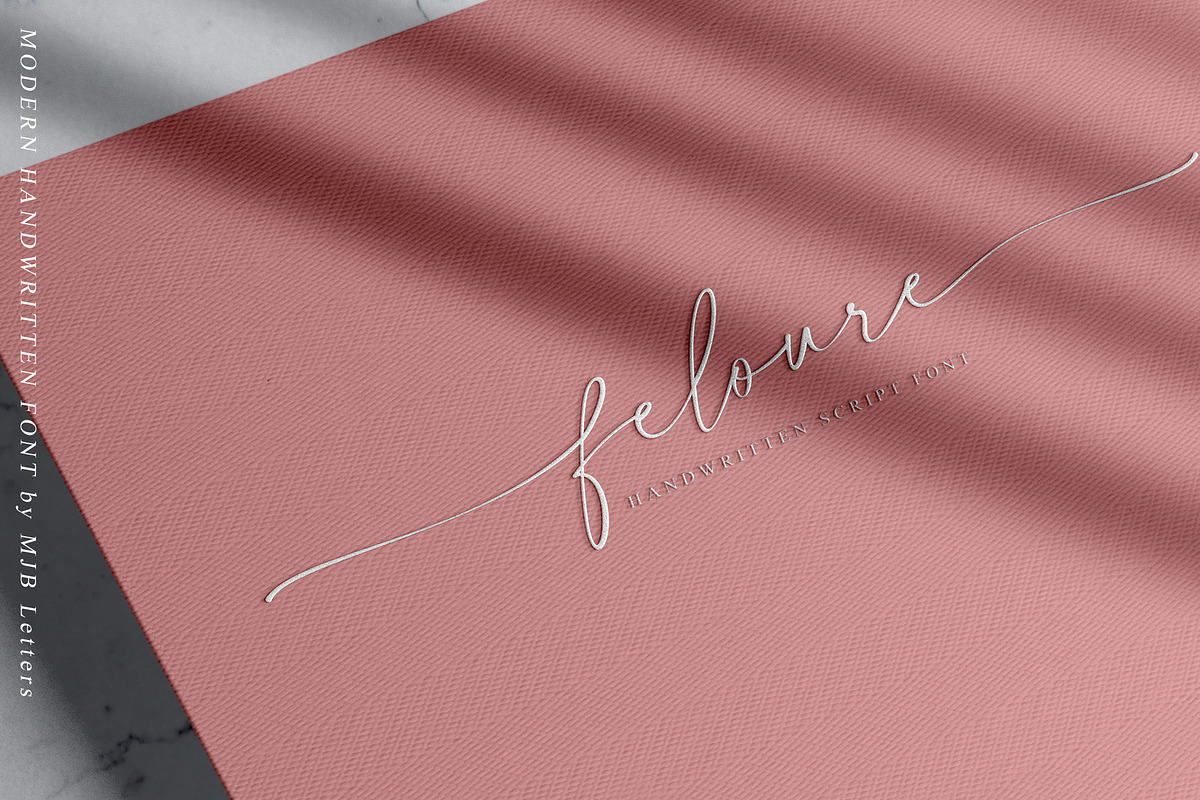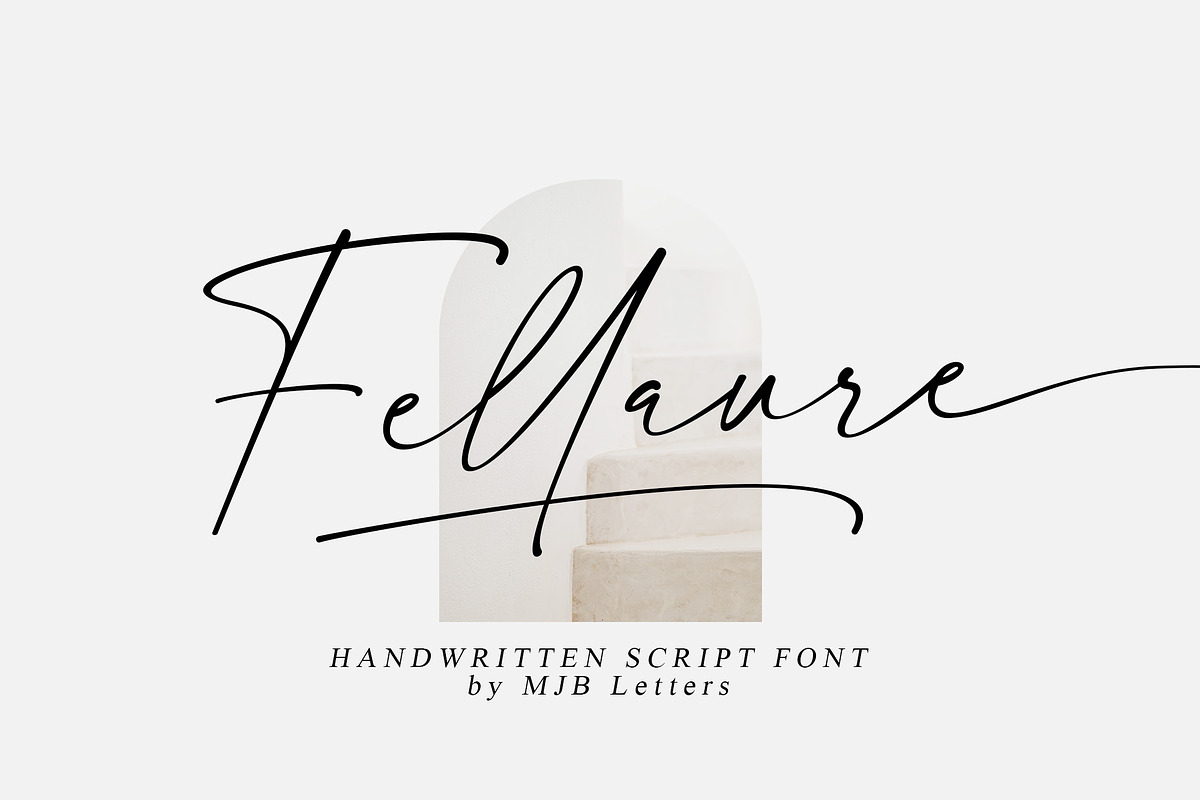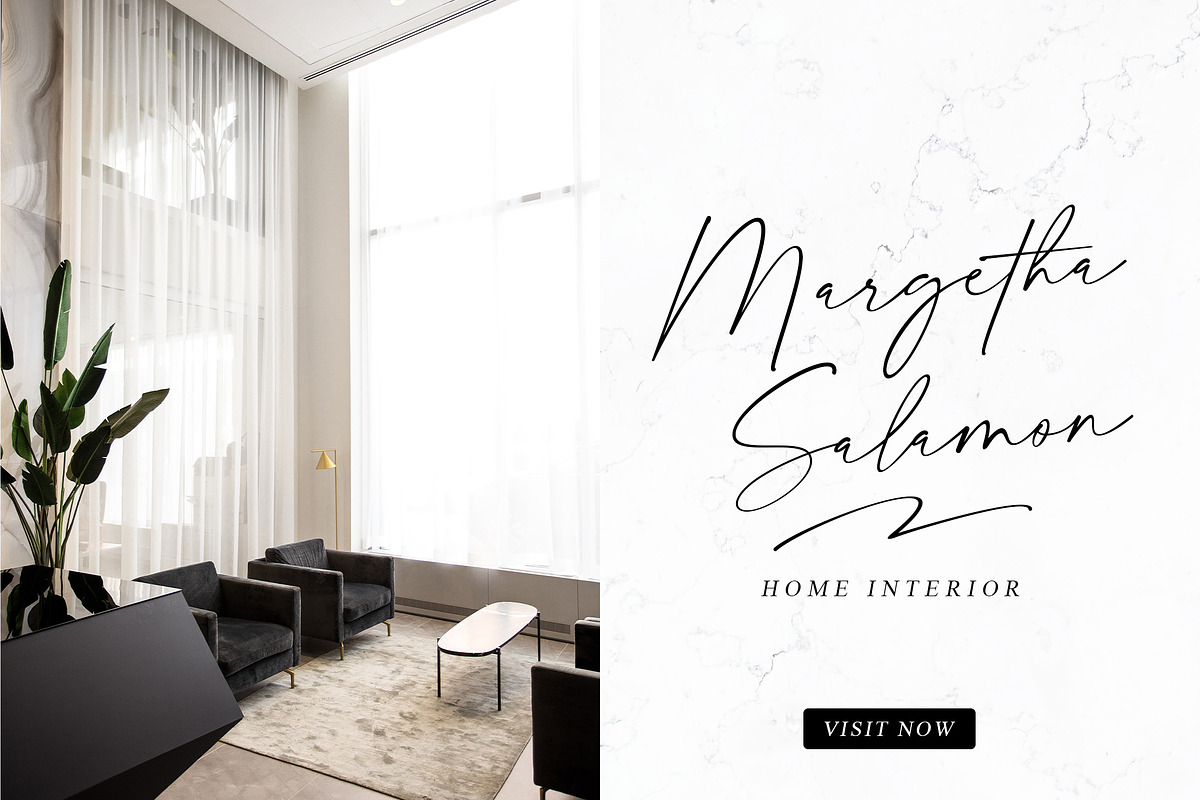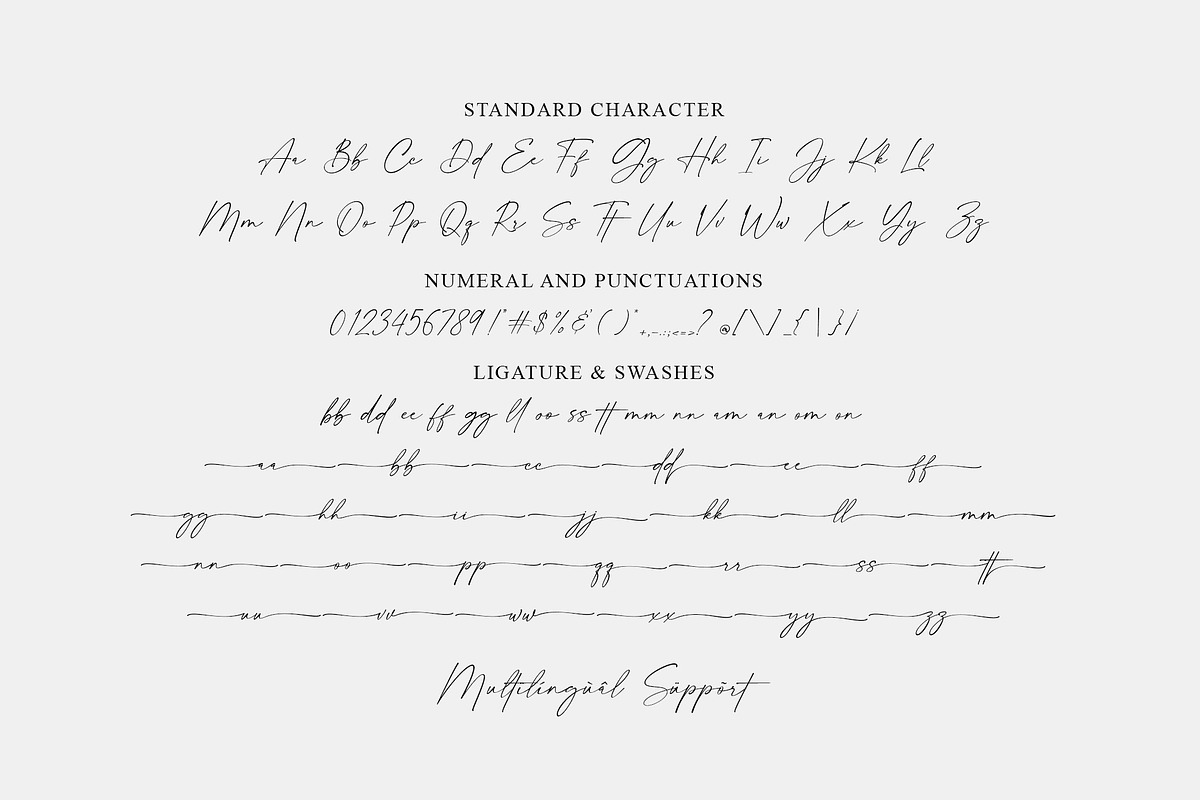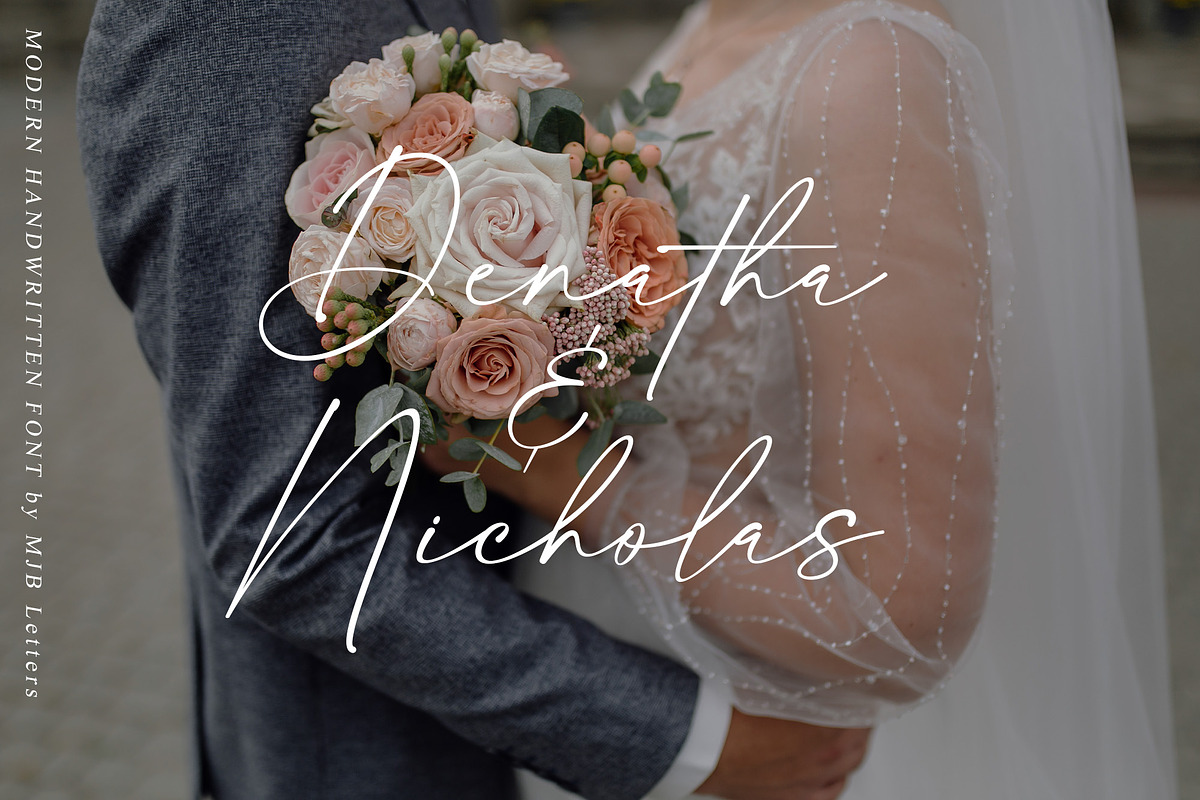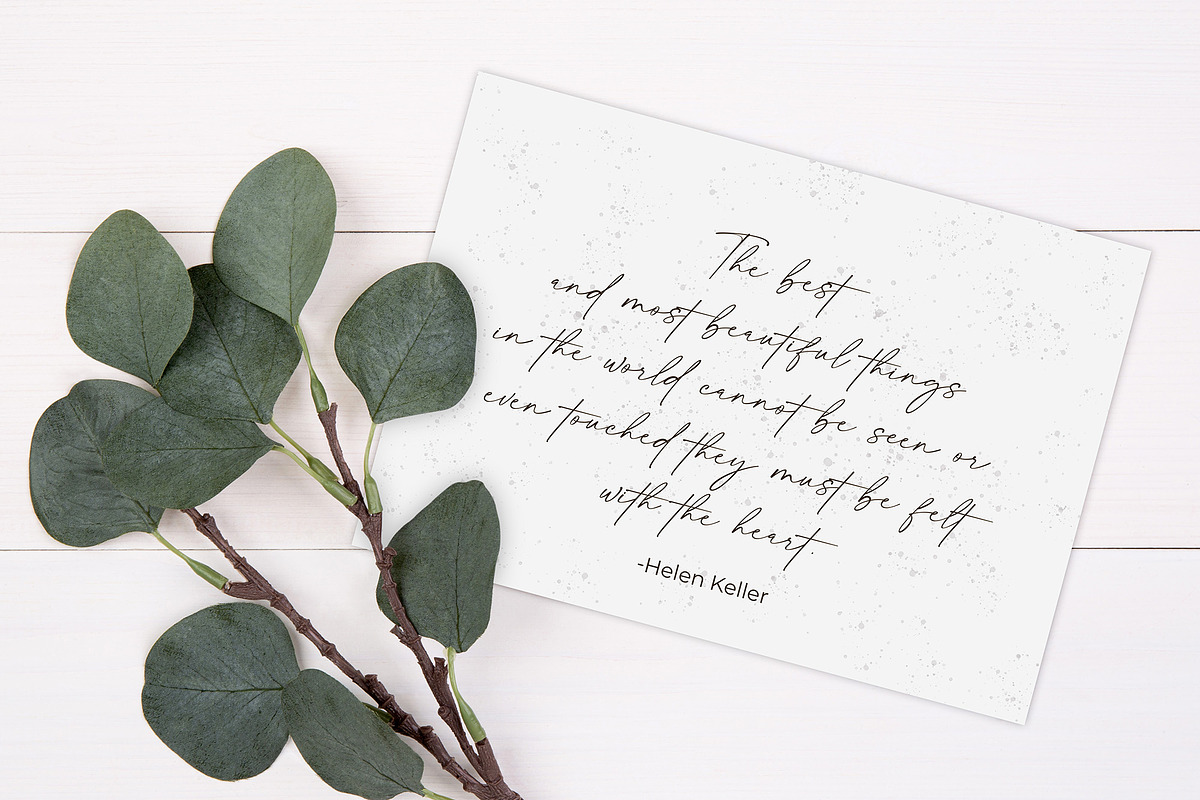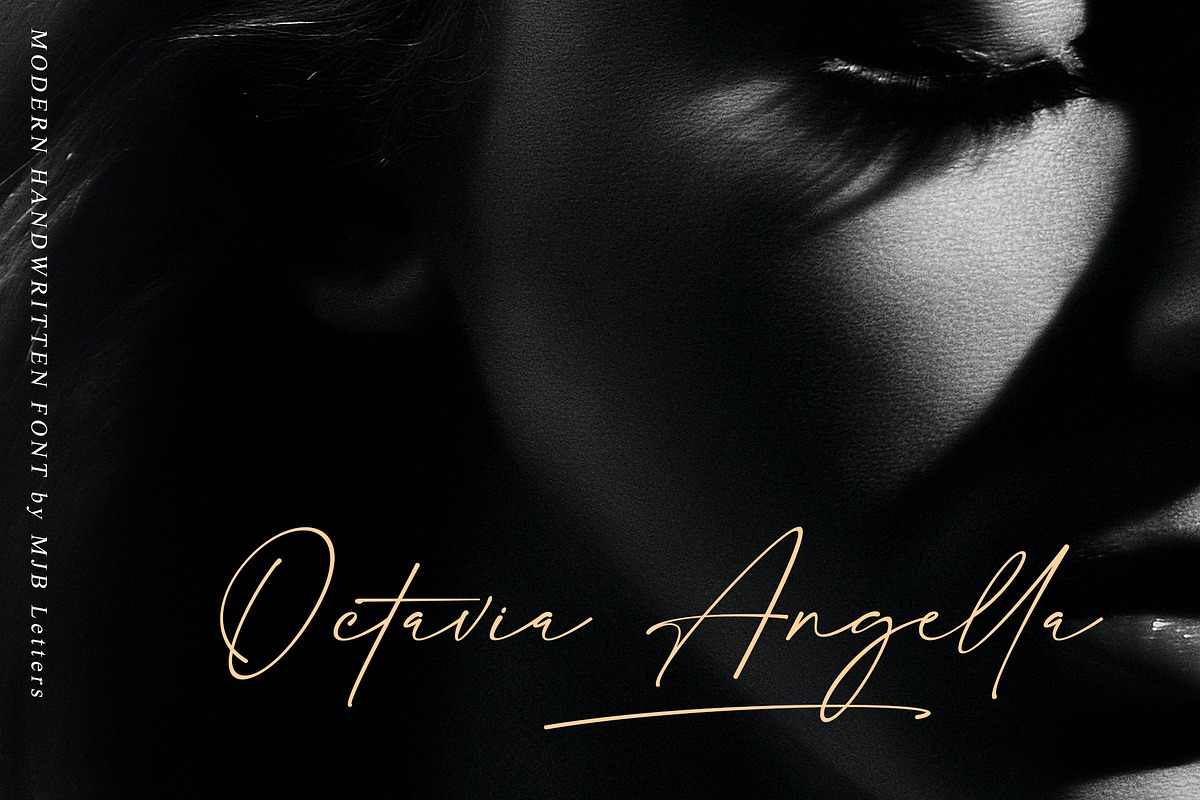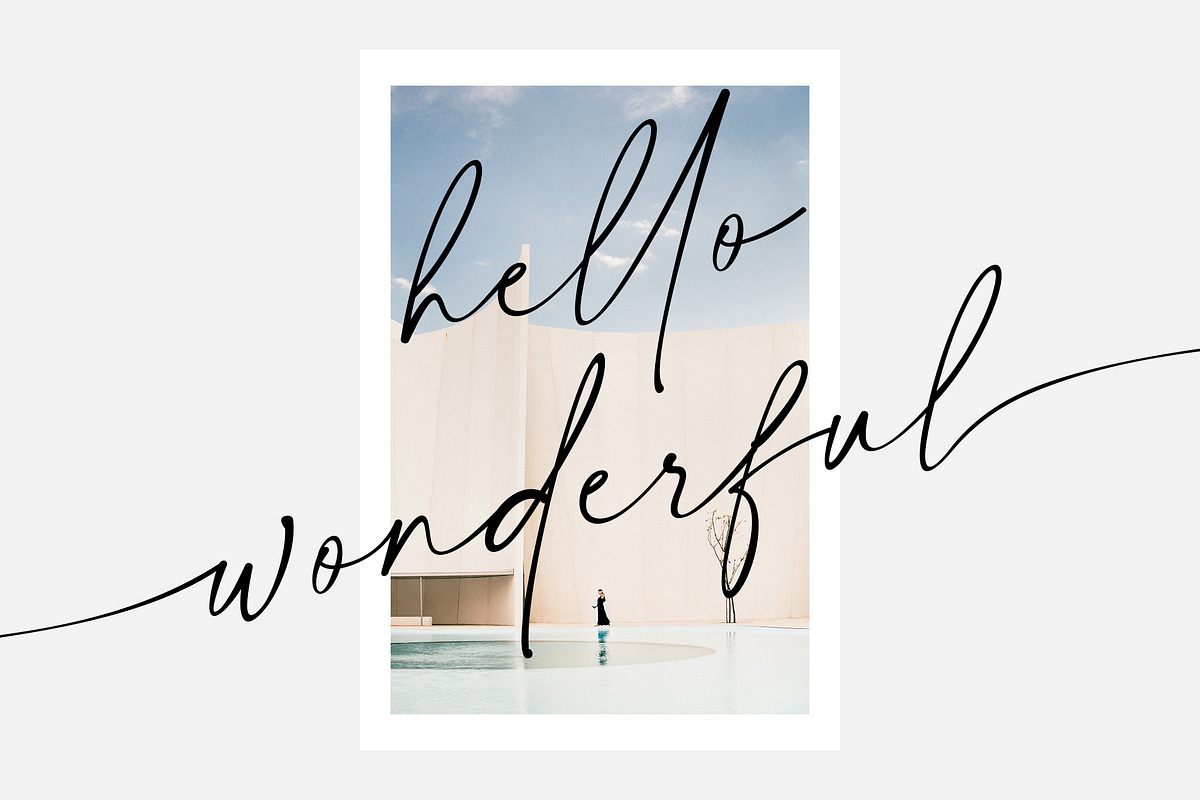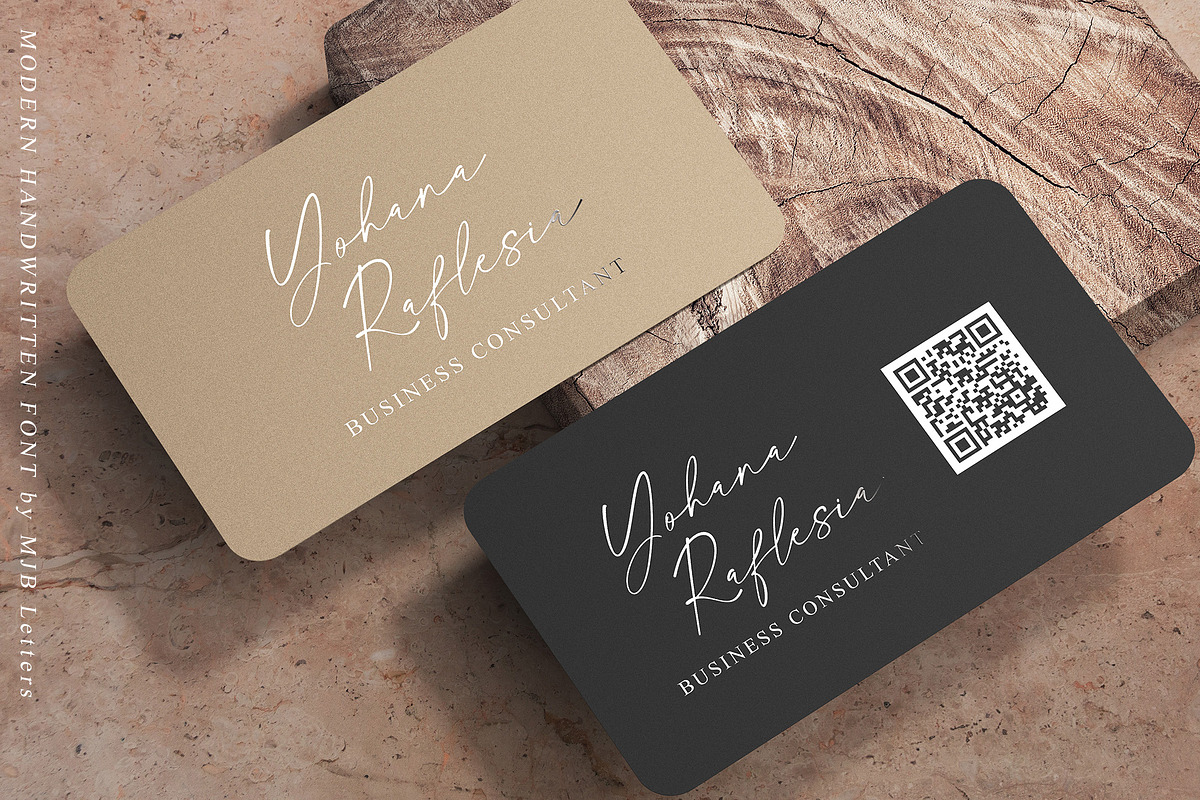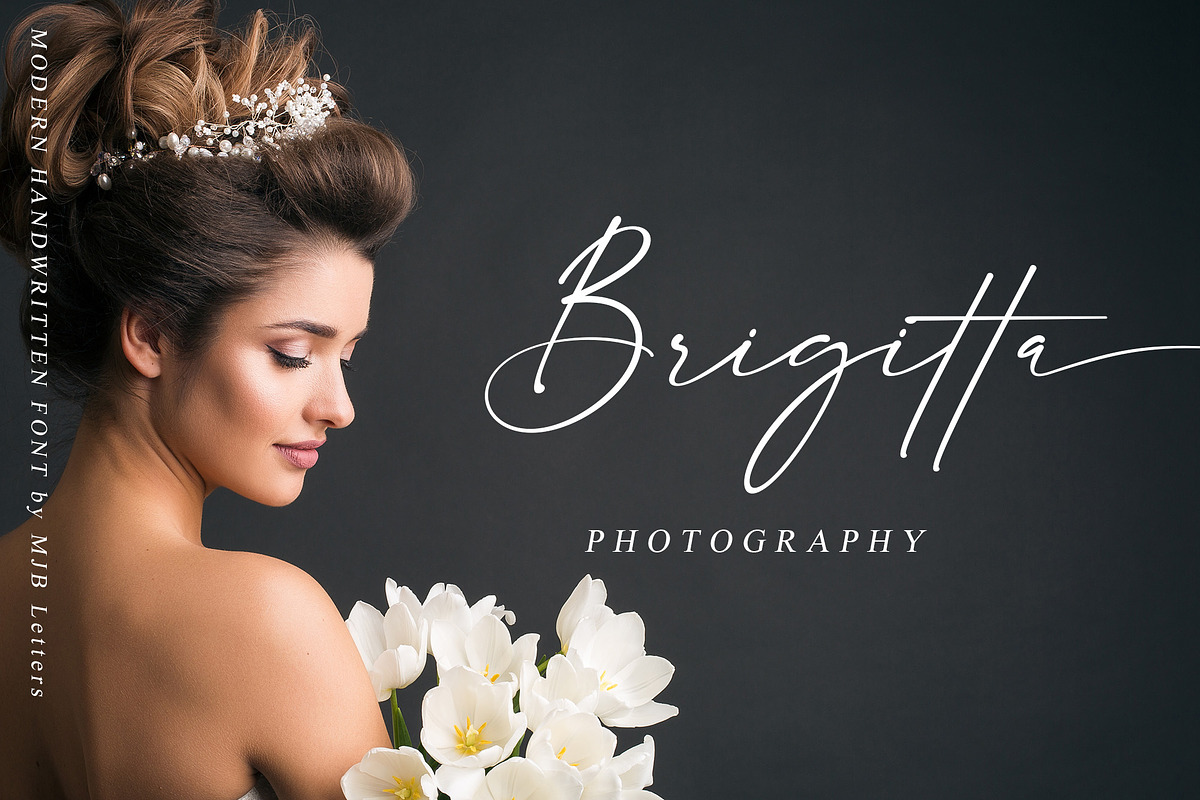
Fellaure - Modern Script
Fellaure is a modern script font that has a strong character in every letter, this font has a beautiful ligature and additional underline swashes that will give you more options for the designs. this font is perfect for branding, wedding design, promotion, packaging design, stationery design, business cards, and more.
- Beginning & ending swashes
- Underline swashes
- Multilanguage support